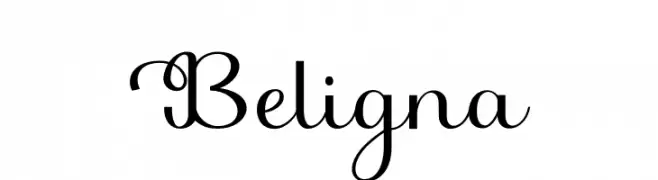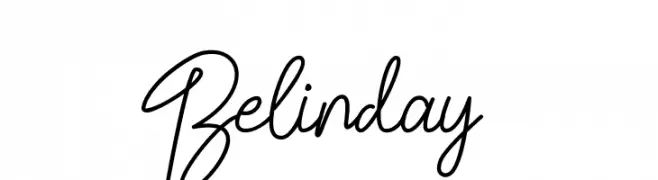
A bold, brush-style font with dynamic, hand-painted strokes.
A bold, brush-like font with an expressive, hand-painted style.
A playful, handwritten font with whimsical curls and loops.
A bold, brush-style font with dynamic, hand-painted strokes.
A bold, brush-style handwritten font with dynamic strokes.
A playful, bold font with rounded edges and a hand-drawn style.
A bold, playful font with rounded, thick strokes and a whimsical style.
Ornamental vector symbols with an ancient, mystical style.
A collection of decorative hieroglyphic symbols inspired by ancient Egyptian writing.
Pictogram font with ISO 7010 mandatory safety symbols.
Standardized warning sign pictograms with bold, simplified icons.
A semaphore flag-inspired font with figures holding flags to represent characters.
A decorative font with bold geometric shapes and intricate internal patterns.
A spooky, jagged font perfect for Halloween themes.
A playful, bold font with rounded, bubble-like characters.
An elegant, flowing script font with smooth, continuous strokes.
A bold, playful font with chunky, rounded characters.
A playful, bold handwritten font with thick, rounded strokes.
A playful, informal handwritten font with smooth, flowing lines.
A decorative font with characters inside football shapes, perfect for sports themes.
A festive, decorative font with stars and stripes, perfect for holiday themes.
A fluid, elegant script font with smooth, flowing lines and a cursive style.
A bold, playful font with bite-like cut-outs in each character.
A bold, geometric font with strong, uniform strokes and high contrast.
A bold, 3D font with a modern, impactful design.
A bold, 3D italic font with a futuristic and dynamic style.
A bold, blocky font with a strong, outlined design.
A bold, italicized font with a dynamic, sporty style.
A bold, condensed font with a strong, geometric design.
A bold, expanded, and italic font with a modern, dynamic style.
A bold, futuristic font with a gradient effect created by horizontal lines.
A bold, italicized font with a gradient and striped design, exuding speed and modernity.